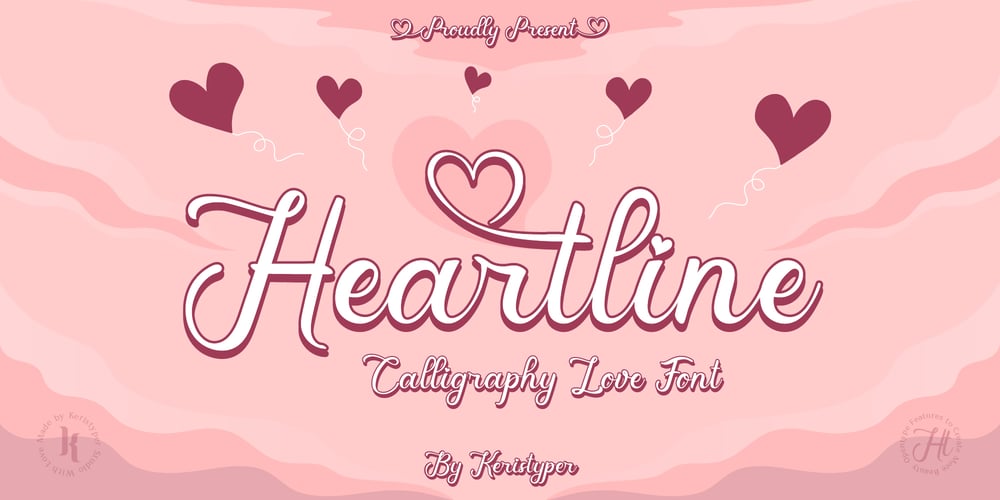
Heartline
Heartline font
Heartline Font Family was designed by Tezar Tantular and published by Keristyper Studio. Heartline contains 1 styles and family package options. Introducing Heartline a magical script font carefully created with a touch of elegance. This font is good for logo design, Social media, Movie Titles, Books Titles, short text even long text letters, and good for your secondary text font with sans or serif.**Featured:*** Standard Uppercase & Lowercase* Numeral & Punctuation* Multilingual : ä ö ü Ä Ö Ü ß ¿ ¡* Alternate & Ligature* PUA encodedWe recommend programs that support the OpenType feature and the Glyphs panel such as Adobe applications or Corel Draw. so you can use all the variations of the glyphs.Hope you enjoy our fonts!